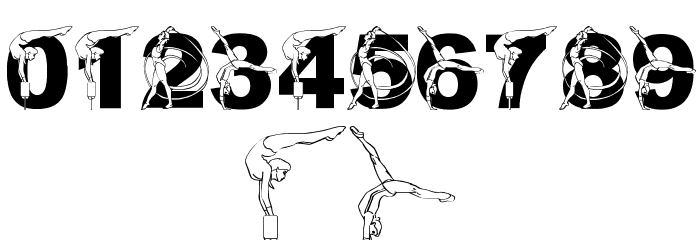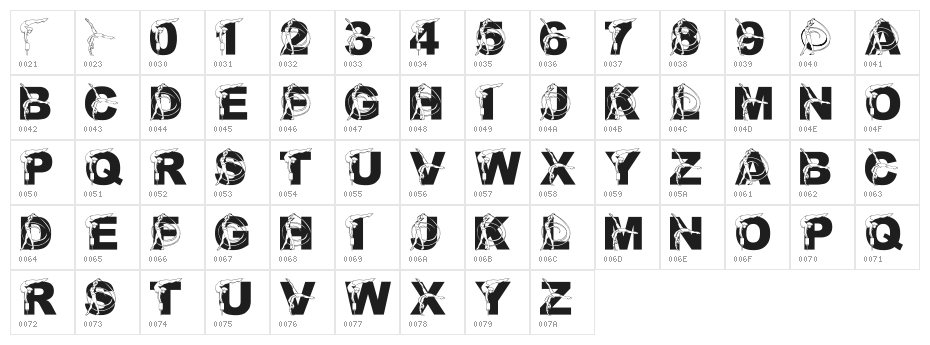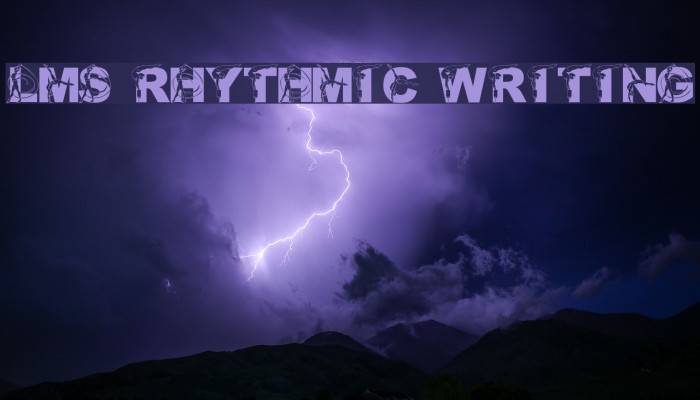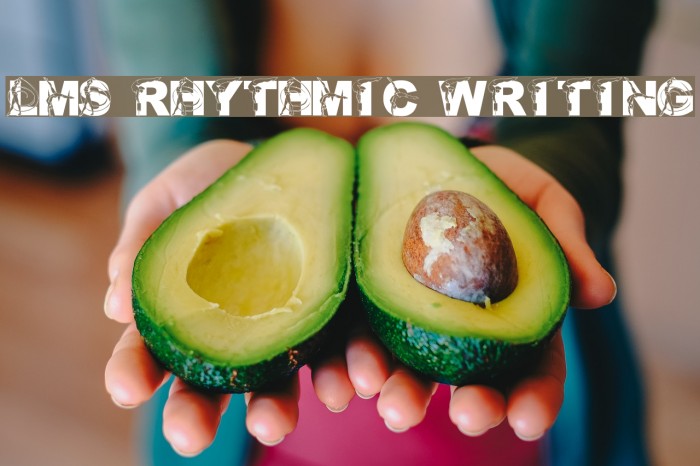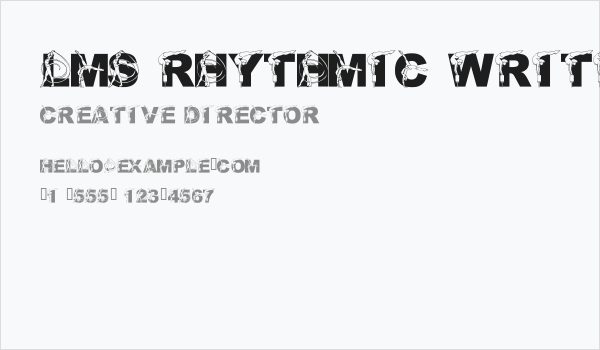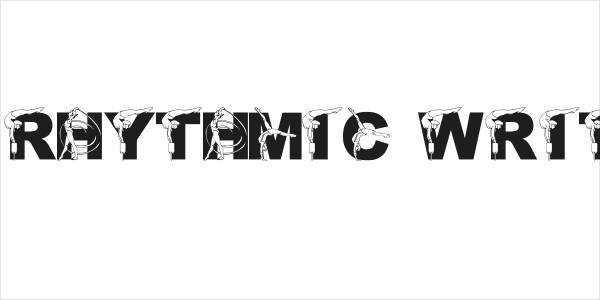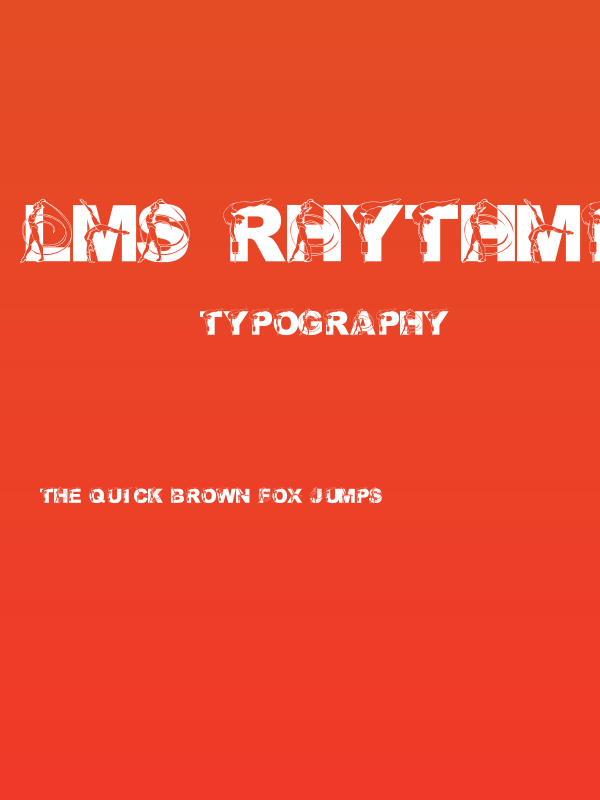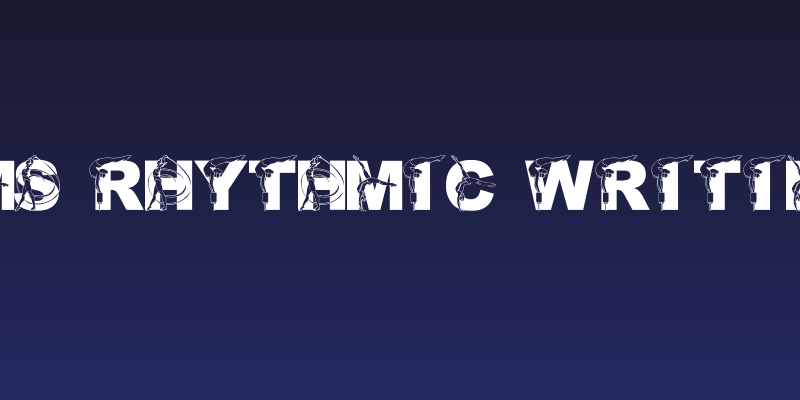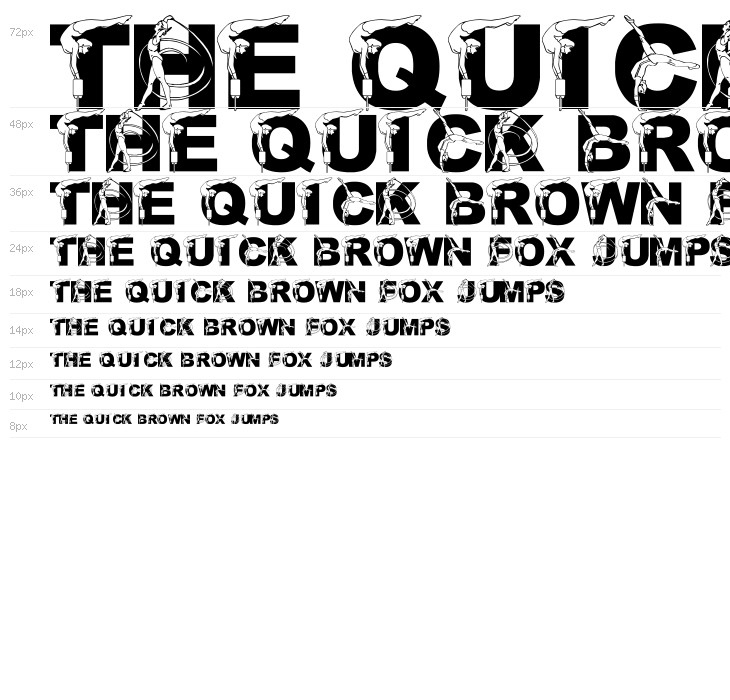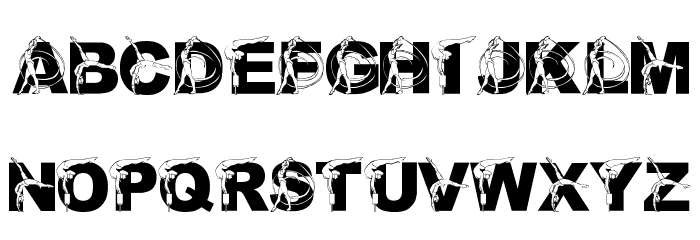
LMS Rhythmic Writing Font
LMS Rhythmic Writing Description
This font features a unique and artistic design where each letter and number is integrated with illustrations of gymnasts in various poses. The characters are bold and blocky, providing a strong visual impact. The combination of solid black shapes with detailed line art creates a striking contrast, making each character stand out. This font is highly decorative and visually engaging, suitable for projects that require a dynamic and energetic feel. The intricate details of the gymnastic figures add a layer of complexity and creativity, making it ideal for sports-related themes or artistic displays.
| Proposed Projects | Ideal for sports event posters, artistic displays, fitness branding, or any project requiring a dynamic and energetic aesthetic. |